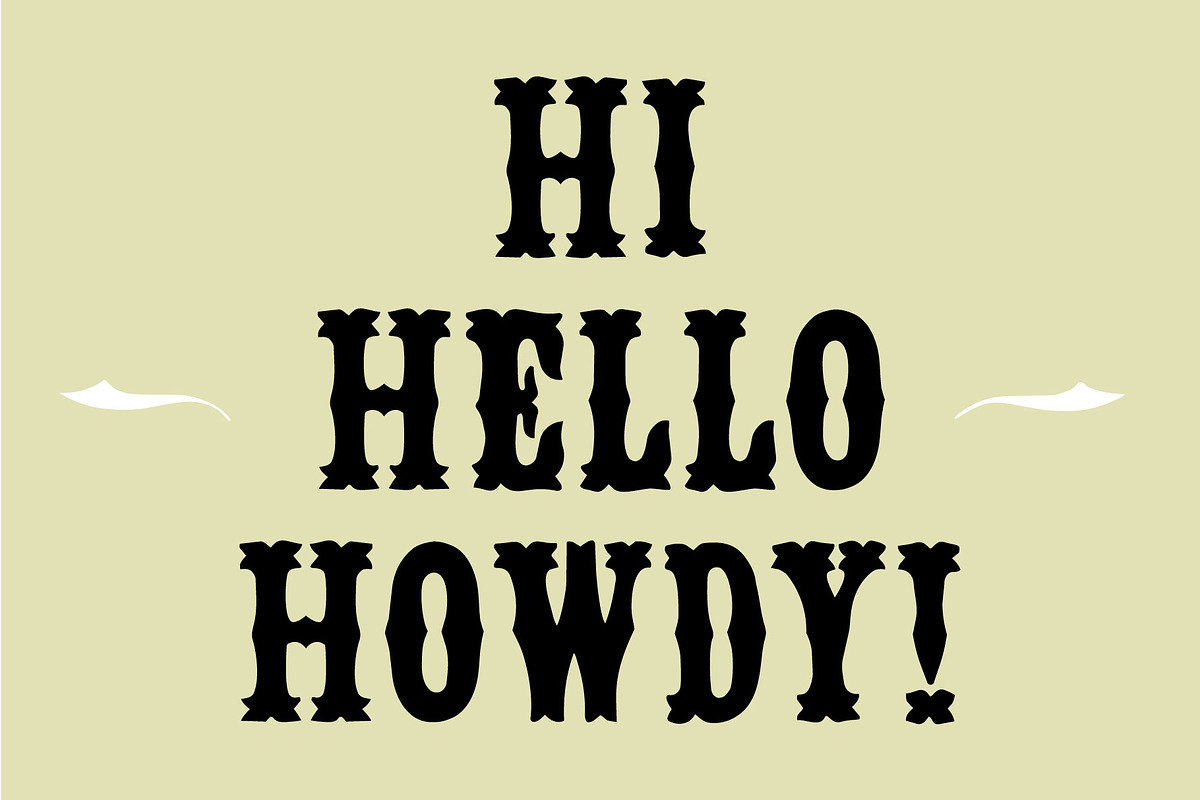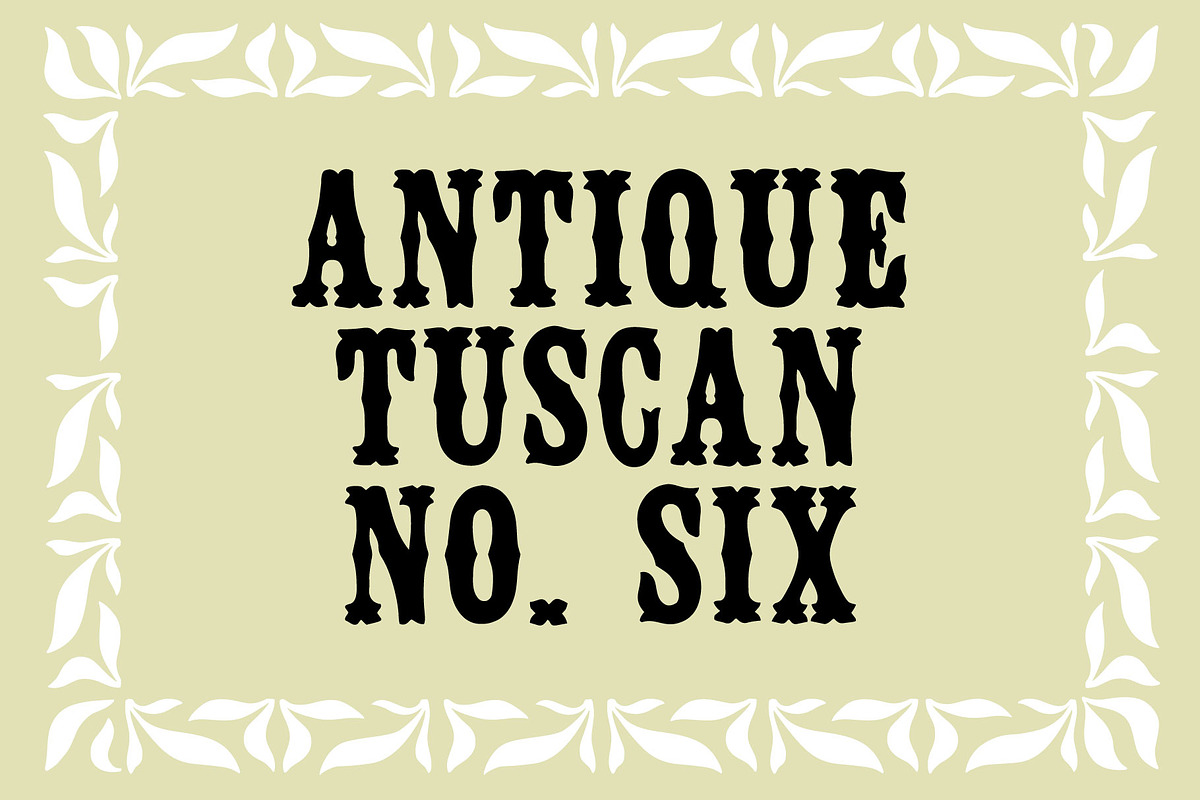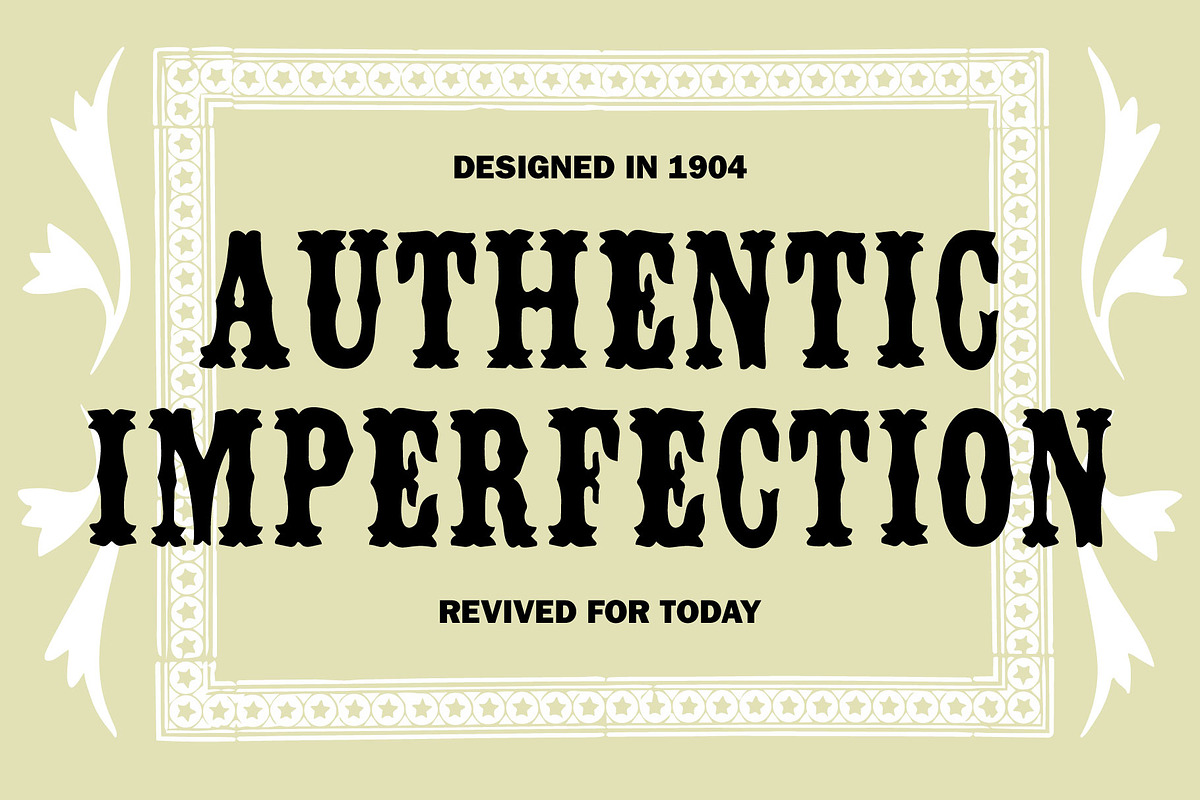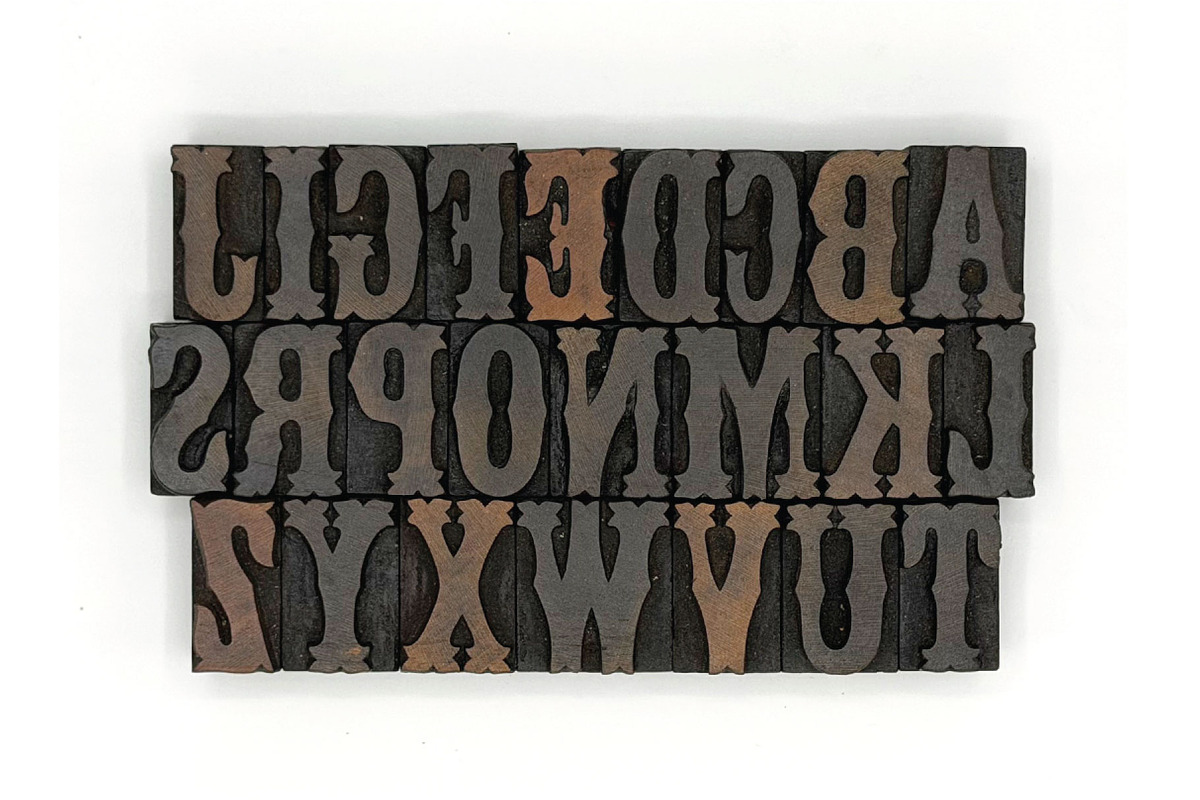
Antique Tuscan No. 6
At first glance, it shares the DNA of many mid-19th-century Tuscans, yet it distinguishes itself through an almost floral nature. This botanical aesthetic is most striking in the dramatic, extended terminals found on characters like the C, E, T, and S. There is a movement within the letters where the split serifs make the face feel more grown than carved.
This typeface likely dates to the mid-1800s. This version is attributed to WH Page and can be seen in company's 1859 catalog. There is no maker's mark on the type so it becomes difficult to actually confirm the manufacturer.
Because wood type was created for headlines, fonts of wood type rarely have extensive character palettes. The characters pictured above are the historically accurate glyphs represented in this font.